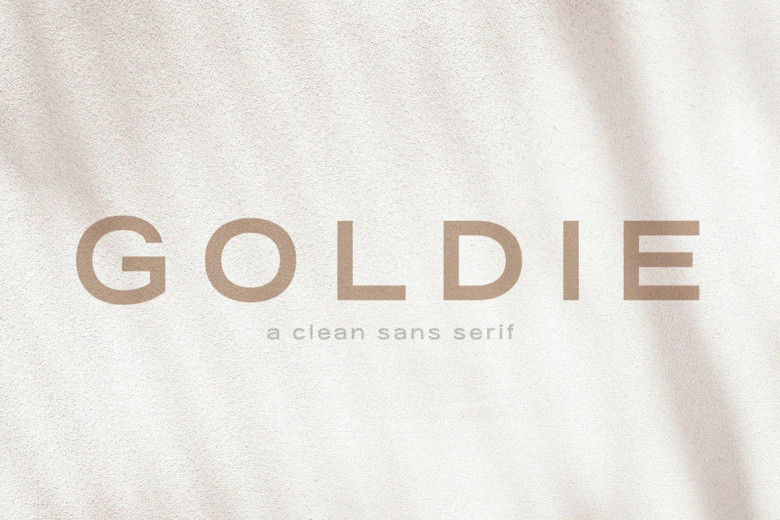
Goldie Font
Goldie Sans is a clean sans serif that is perfect for logos, quotes, long-form copy, and more. Both uppercase and lowercase are included in light and bold, but I am particularly fond of using it as an all caps font for logos, headlines, and short quotes.
Goldie Sans Serif Font